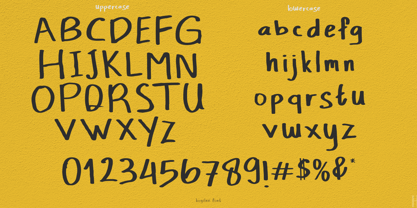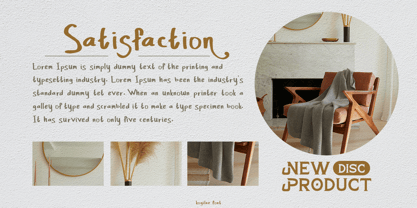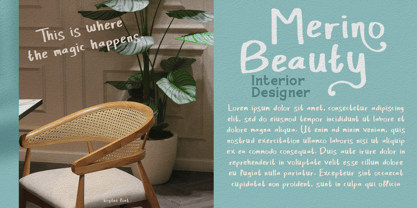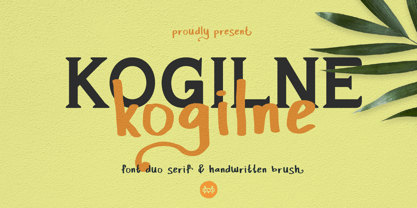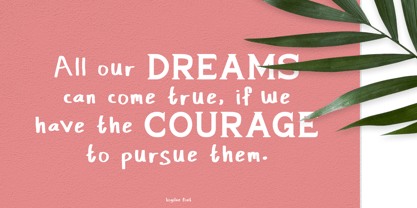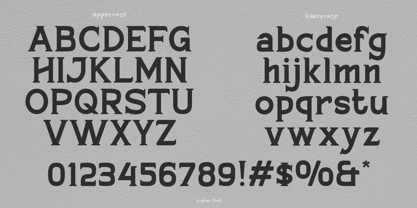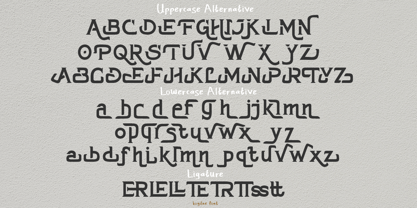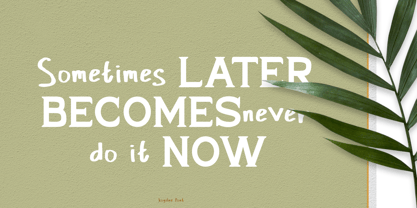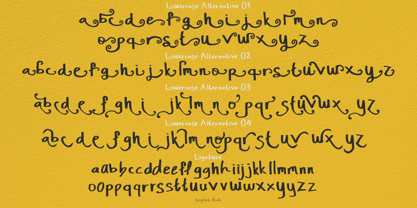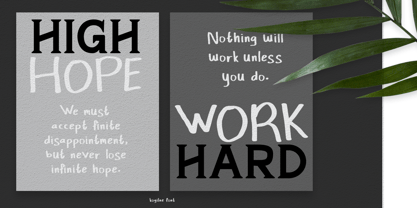
Kogilne
by madeDeduk
The Kogilne Font Family was designed by madededuk and published by madeDeduk. Kogilne contains 2 styles and family package options.
Kogilne elegant and luxurious Duo serif font combined with natural handwriting. This font has a minimalist and simple look. However, this font brings a luxurious and attractive style to modern logos, websites, social media quotes, wedding stationery, and more.